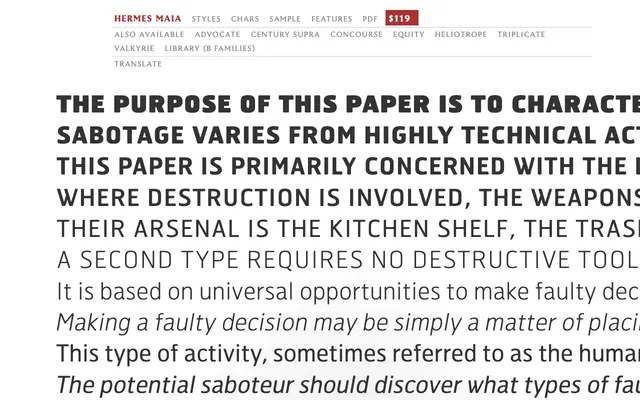
Hermes Maia
A humanist sans from MB Type designed for sustained reading in editorial and document contexts.
Hermes Maia is part of Matthew Butterick's MB Type library, a collection known for text-first typefaces built around legibility and practical performance on the page. The family is offered alongside other MB Type text faces including Equity, Concourse and Triplicate, suggesting a similar focus on document and long-form use. Priced at $119, it sits within a tightly curated library of eight families.
The specimen text and overall design suggest a clean, legible humanist sans-serif intended for body and editorial use, consistent with MB Type's focus on text-oriented typefaces for reading environments.